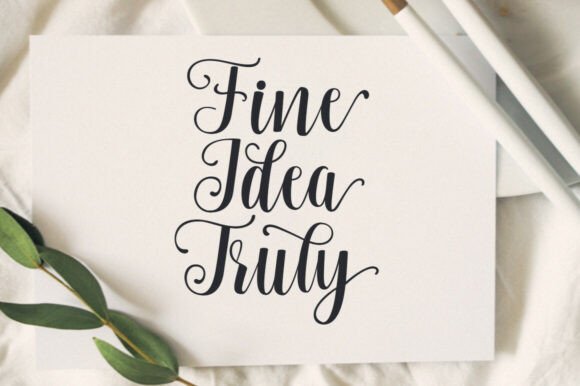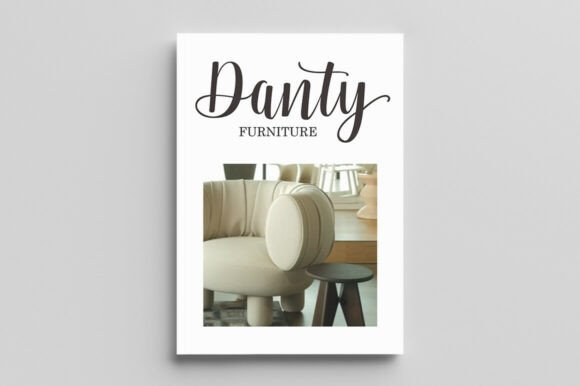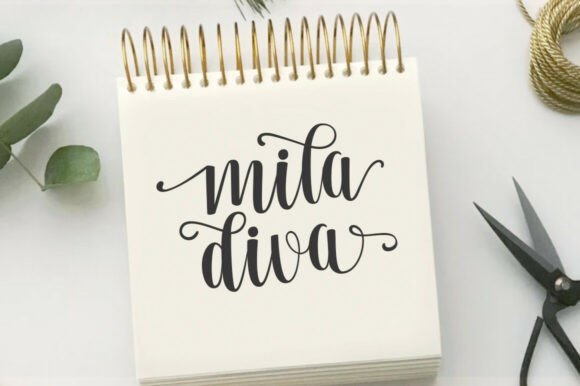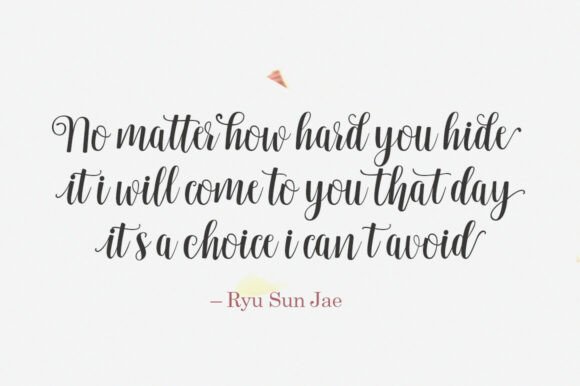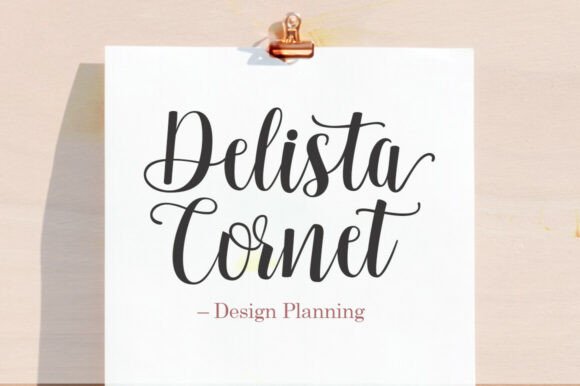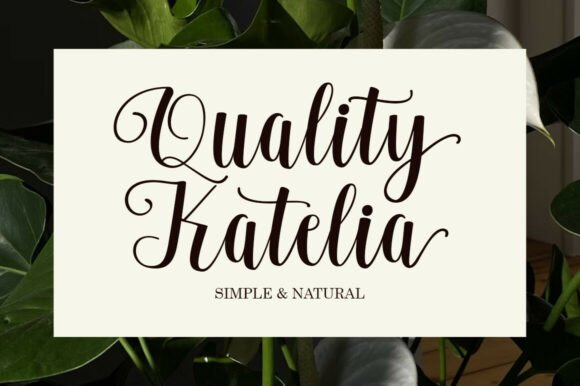
Ekatila Font: Elevate Your Designs with Elegant Handwritten Calligraphy
In the world of typography, a well-crafted font can make all the difference in creating stunning visual designs. If you’re a designer or crafter looking for a unique and elegant typeface to elevate your projects, look no further than Ekatila Font. This beautifully crafted handwritten calligraphy font is designed with a distinctive, feminine, and elegant touch that will add a touch of sophistication to any design.
A Beautifully Crafted Handwritten Calligraphy Font
Ekatila Font is a masterpiece of typographic design, boasting a unique and elegant style that sets it apart from other fonts. Its handwritten calligraphy feel makes it perfect for a wide range of design applications, from branding and logos to advertisements, merchandise, and social media posts. The font’s regular and bold versions offer versatility and flexibility, allowing you to experiment with different styles and effects.
Extensive Collection of Glyphs and Alternates
One of the standout features of Ekatila Font is its extensive collection of glyphs. Each letter has numerous alternatives, easily accessible in applications that support OpenType. This means you can experiment with different variations of each letter to create a unique and customized look that suits your design needs. Whether you’re looking to add a touch of whimsy or elegance to your designs, Ekatila Font’s glyphs and alternates have got you covered.
PUA-Encoded for Effortless Access
Ekatila Font is also PUA-encoded, ensuring effortless access to all glyphs, swashes, and alternate characters. This means you can easily access and use the font’s extensive range of features without having to navigate complex menus or settings. The PUA encoding makes it easy to customize your creations with ease, allowing you to focus on the creative aspects of design rather than getting bogged down in technical details.
Endless Possibilities for Customization and Creativity
Ekatila Font is highly versatile, offering endless possibilities for customization and creativity in your designs. Whether you’re working on branding, logos, advertisements, merchandise, social media posts, packaging, magazine covers, websites, wedding invitations, or any other design project, Ekatila Font is the perfect choice. Its unique and elegant style makes it suitable for a wide range of applications, from formal and professional to whimsical and playful.
Ekatila Font is a must-have for designers and crafters looking to elevate their designs with elegant handwritten calligraphy. Its unique and feminine style makes it perfect for projects that require a touch of sophistication and elegance. Whether you’re a seasoned designer or a crafty DIY enthusiast, Ekatila Font is an essential addition to your typographic toolkit.
Key Features of Ekatila Font
- Beautifully crafted handwritten calligraphy font
- Unique, feminine, and elegant style
- Available in regular and bold versions
- Extensive collection of glyphs and alternates
- PUA-encoded for effortless access to glyphs, swashes, and alternate characters
- Highly versatile and customizable
- Suitable for a wide range of design applications
Get Ready to Elevate Your Designs with Ekatila Font
If you’re looking for a font that will add a touch of elegance and sophistication to your designs, look no further than Ekatila Font. With its unique and feminine style, extensive collection of glyphs and alternates, and PUA encoding, Ekatila Font is the perfect choice for designers and crafters looking to elevate their designs. So why wait? Get Ekatila Font today and start creating stunning visual designs that will leave a lasting impression.